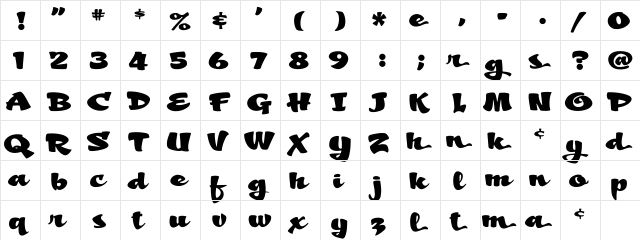
A&S Brushwacker Bold
| Foundry | Art&Sign Studio/Signfonts |
| Designer | Steve Contreras |
Design Context for A&S Brushwacker Typeface
A&S Brushwacker flows with the natural rhythm of handwritten lettering, making it ideal for designs that call for warmth and personal expression. The heavy weight commands attention and anchors typographic hierarchies.
Font Pairing: Combine A&S Brushwacker with a simple geometric sans for maximum contrast — the tension between flowing curves and clean structure is a classic typographic pairing.
Pro Tip: Use A&S Brushwacker for short runs of text — names, titles, or taglines. Extended body copy in script faces tires the eye quickly.